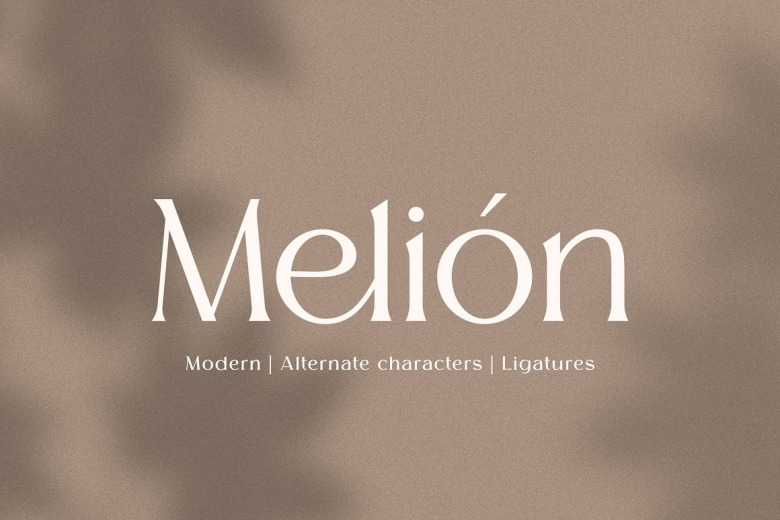
Melion Font
Melion is a classy serif typeface with a stylish look. This font was specially designed for your luxury projects, which require elegant feminine appearance, it can be used as an display logo applications or visual identity and branding.
Melion Serif Font Family